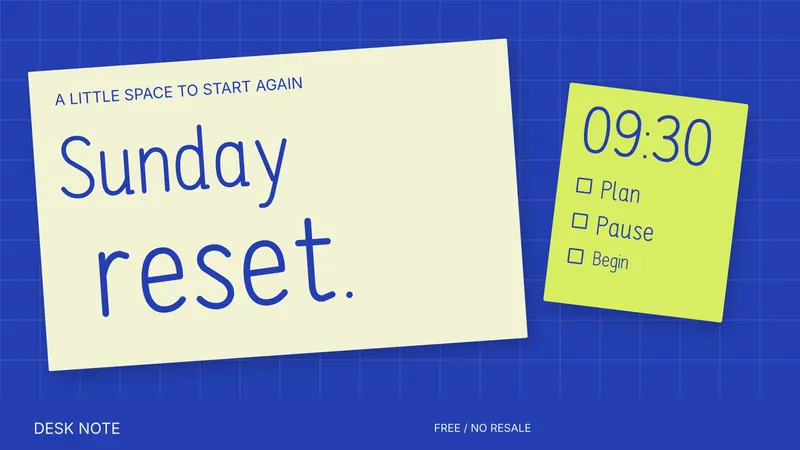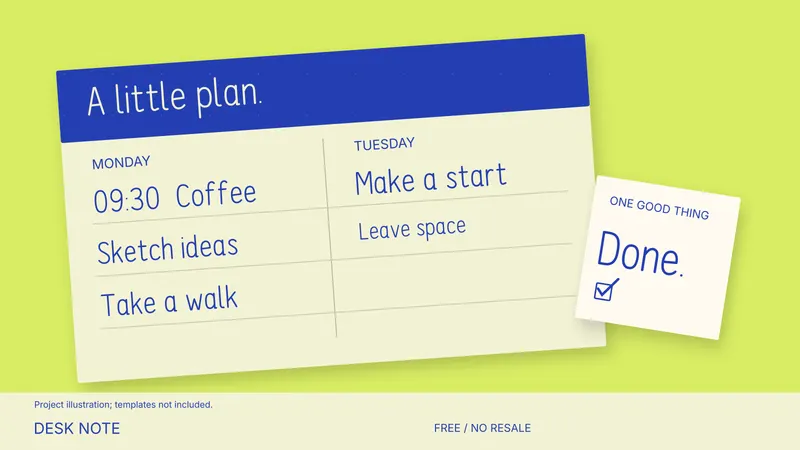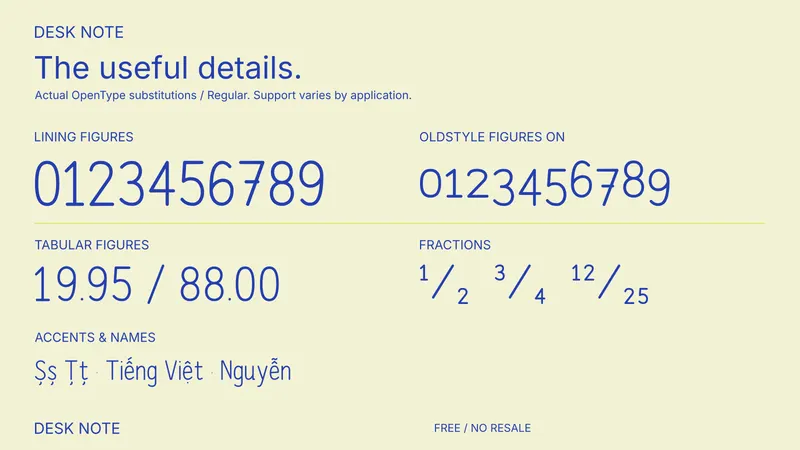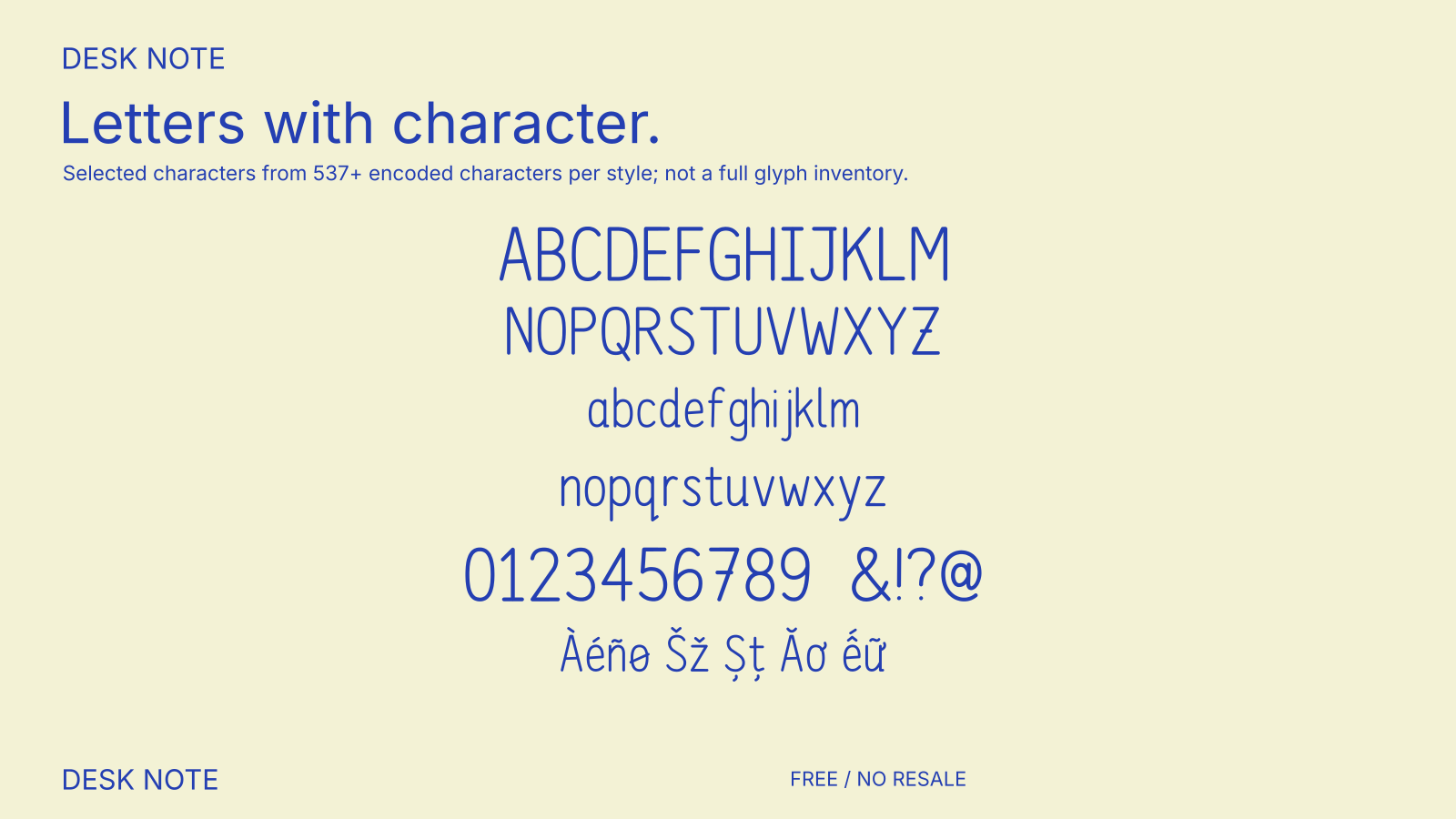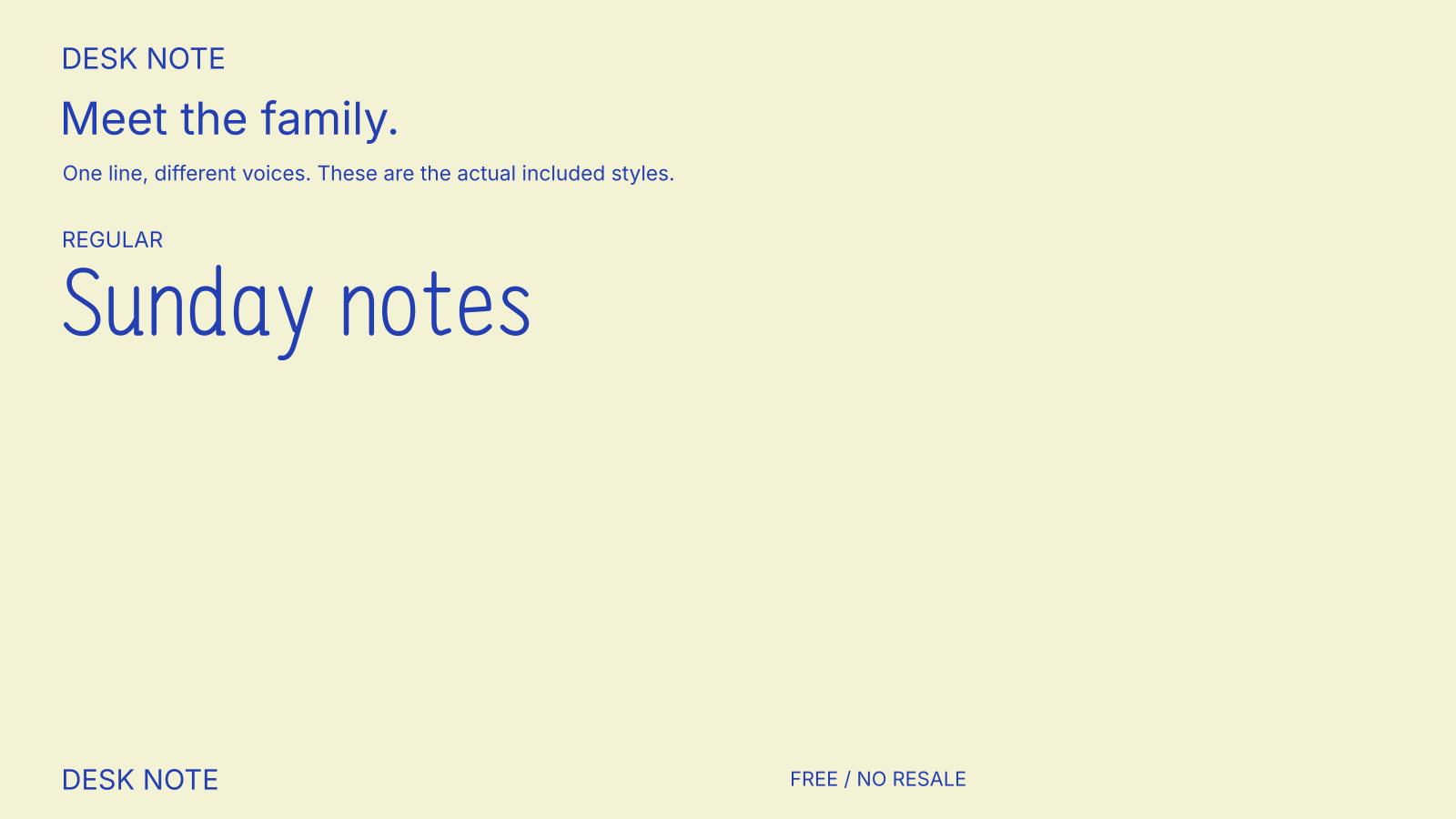
Desk Note - Free Font
Narrow, upright handwriting for personal planners and notebook labels.
- Standard ligatures (liga) — all paid styles.
- Ornaments (ornm) — all paid styles.